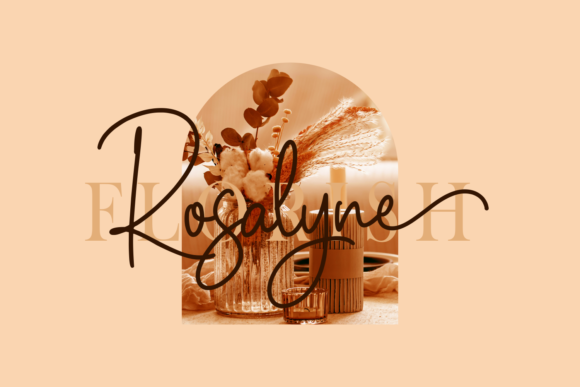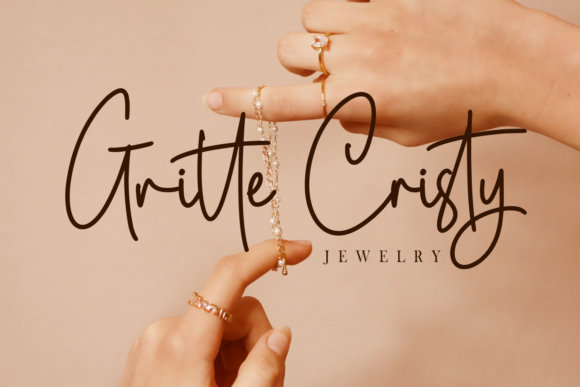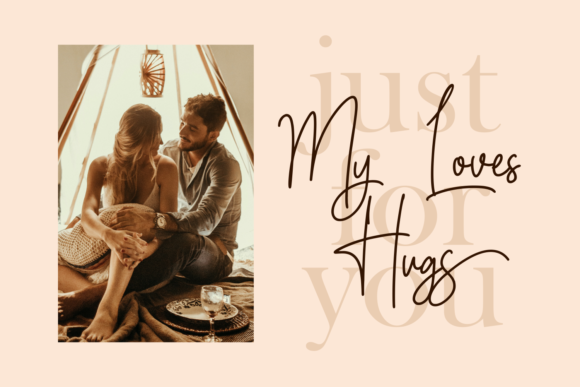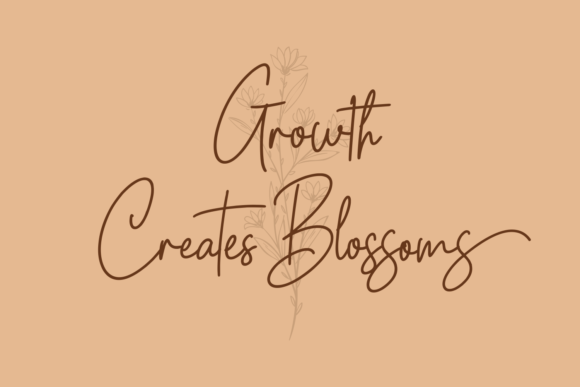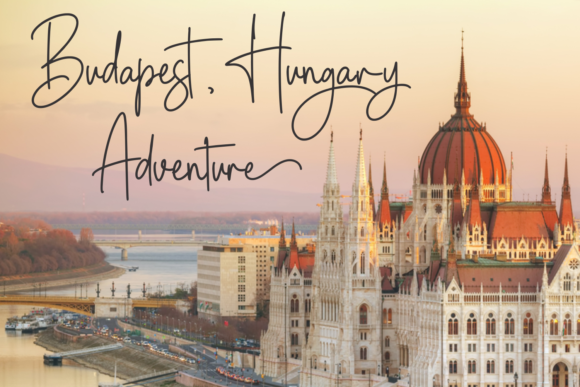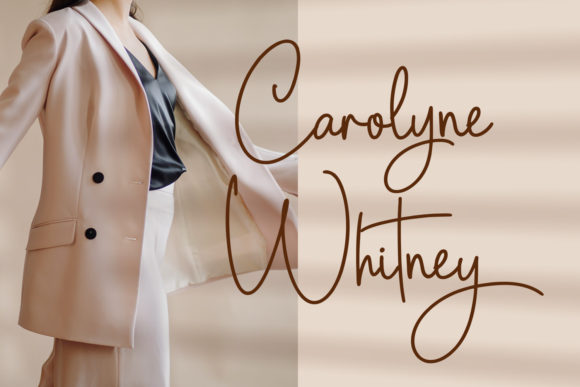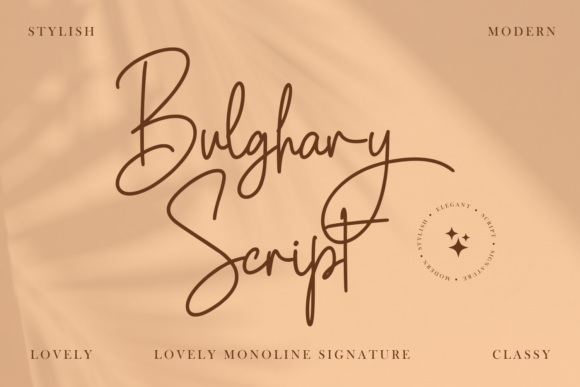
Bulghary Script Font: Elevate Your Designs with Elegance
In the world of typography, script fonts hold a special place for their ability to add a touch of elegance and sophistication to any design. Among the myriad of script fonts available, Bulghary Script stands out for its unique charm and versatility. This article delves into the characteristics of Bulghary Script, exploring its features, benefits, and applications, making it a must-have for designers and crafters looking to elevate their creations.
The Essence of Bulghary Script
Bulghary Script is a thin lettered and delicate script font that embodies the essence of elegance. Its ravishing style is designed to captivate and inspire, offering a fresh perspective for designers seeking to infuse their projects with a sense of luxury and refinement. Whether you’re working on branding, packaging, or digital content, Bulghary Script provides the perfect blend of sophistication and creativity.
Key Features of Bulghary Script
- Thin Lettered and Delicate: The font’s slender lines and delicate features make it ideal for designs where elegance is paramount.
- PUA Encoded: Bulghary Script is PUA (Private Use Area) encoded, ensuring that accessing all glyphs and swashes is straightforward. This feature significantly enhances the font’s usability, allowing for a wide range of design possibilities.
- Ravishing Style: Its unique style sets it apart from more traditional script fonts, offering a fresh and distinctive look.
Advantages for Designers and Crafters
Bulghary Script offers several advantages that make it a valuable addition to any designer’s or crafter’s toolkit:
- Versatility: Its elegant and versatile nature makes it suitable for a variety of projects, from wedding invitations and luxury branding to fashion magazines and digital blogs.
- Easy to Use: Being PUA encoded, designers can easily access and incorporate the font’s extensive features into their work without needing complex software or technical expertise.
- Customization: The font’s range of glyphs and swashes allows for a high level of customization, enabling designers to tailor their creations to specific needs and preferences.
Applications of Bulghary Script
The applications of Bulghary Script are vast and varied. Here are a few examples of how this beautiful font can be utilized:
- Branding and Logo Design: Create memorable and elegant logos that stand out.
- Stationery and Invitations: Add a touch of sophistication to wedding invitations, business cards, and letterheads.
- Digital Content: Enhance blogs, social media posts, and website headers with a dash of elegance.
- Packaging: Elevate product packaging with a luxurious and eye-catching design.
Bulghary Script is more than just a font; it’s a design tool that opens up a world of creative possibilities. Its combination of delicacy, elegance, and ease of use makes it an invaluable resource for designers and crafters aiming to produce stunning and impactful designs. Whether you’re looking to add a touch of luxury to your branding, create beautiful stationery, or enhance your digital content, Bulghary Script is an excellent choice. Embrace its ravishing style and discover how it can transform your designs.
In conclusion, Bulghary Script is a versatile and elegant font that can significantly enhance your designs. Its unique features, combined with its ease of use, make it a must-have for anyone looking to add a touch of sophistication and elegance to their creations.